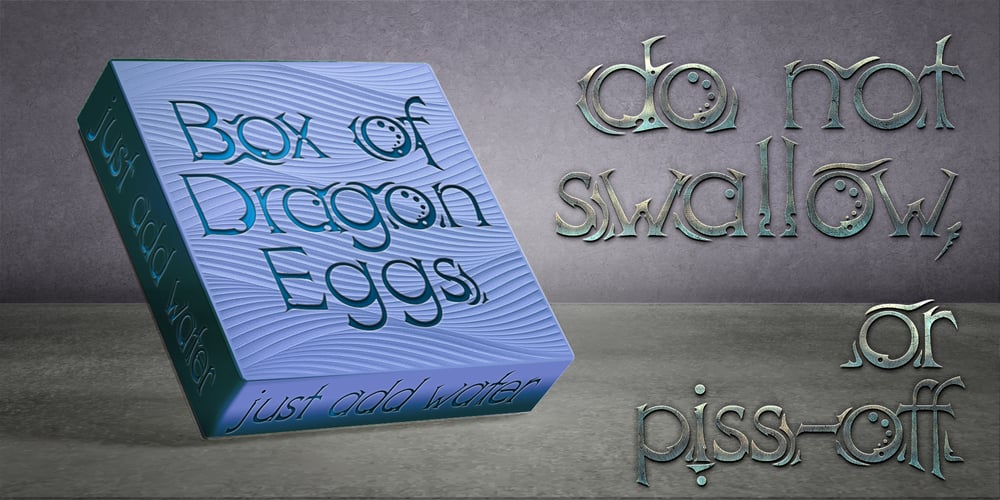
DT Dragon Quill Font Family was designed by Scott Spensley and published by Dragon Tongue Foundry. DT Dragon Quill contains 4 styles and family package options. The Dragon Quill family is the 3rd reincarnation of earlier (yet to be released) dragon fonts.A simple ‘Dragon Round’ grew to become ‘Dragon Flare’, then evolved to become ‘Dragon Quill’.Within the Dragon Quill family, 1 ‘Subtle Goth’ is the most basic, followed by 2 ‘Goth’ and 3 ‘Gothic’.4 ‘Tribal Tattoo’ is the most complex font in the family, adding hooks, spikes, holes and extra shapes around and between letters. Because of the complexity of level 4 ‘Tribal Tattoo’, occasionally inserting letters into existing text may cause some unusual effects between the letters. If you find this distracting, a workaround can be to convert it into one of the other fonts (like Subtle Goth), while editing, then to turn it back into ‘Tribal Tattoo’ when finished.